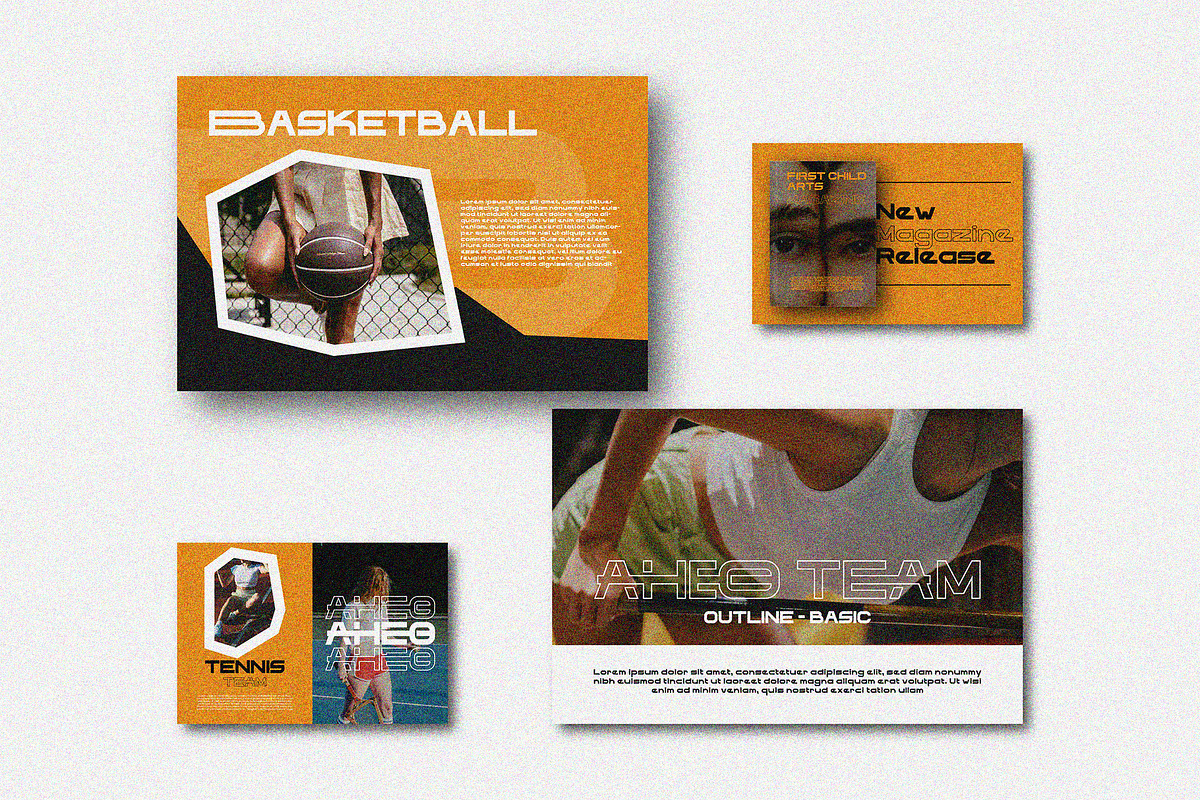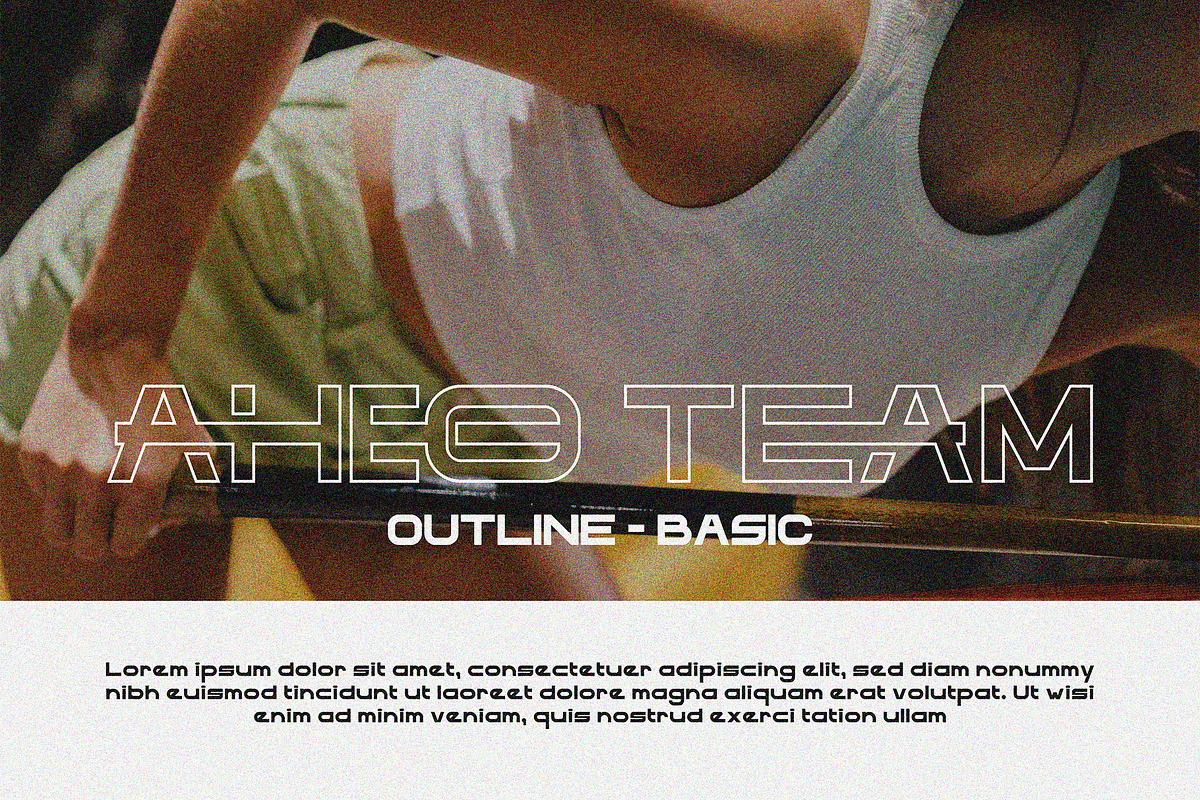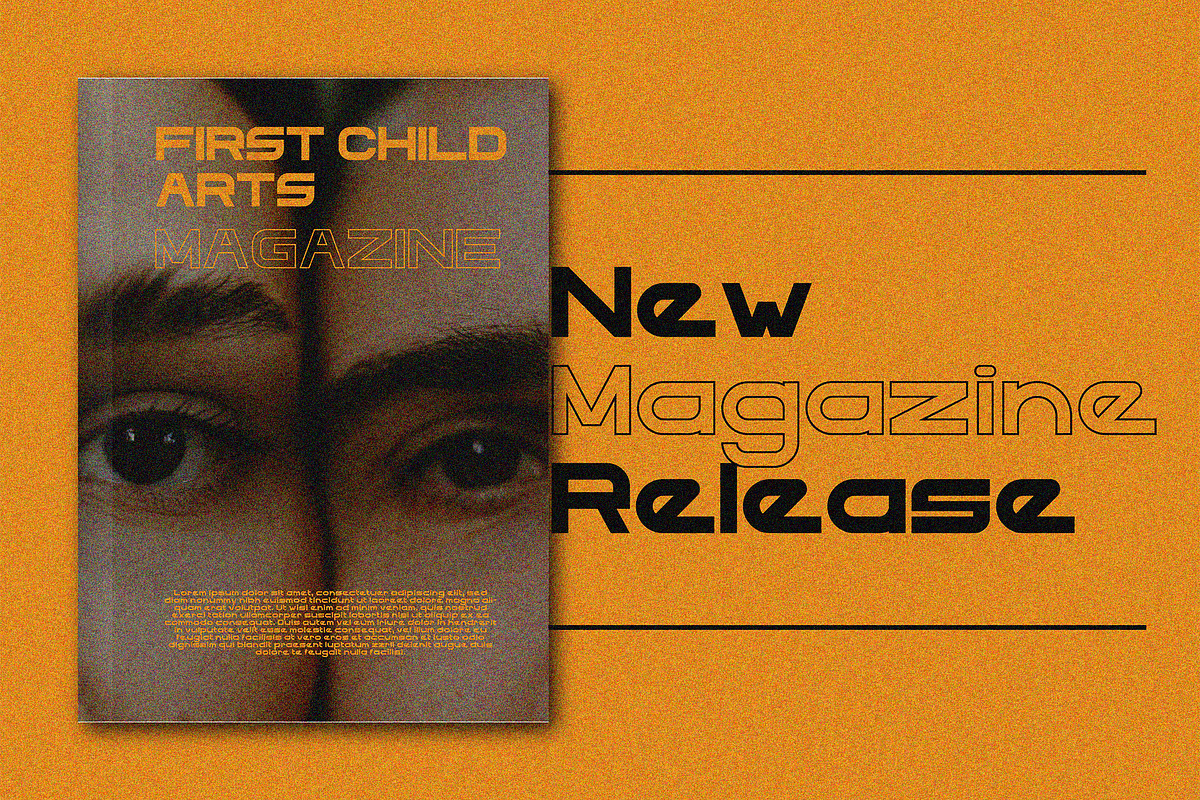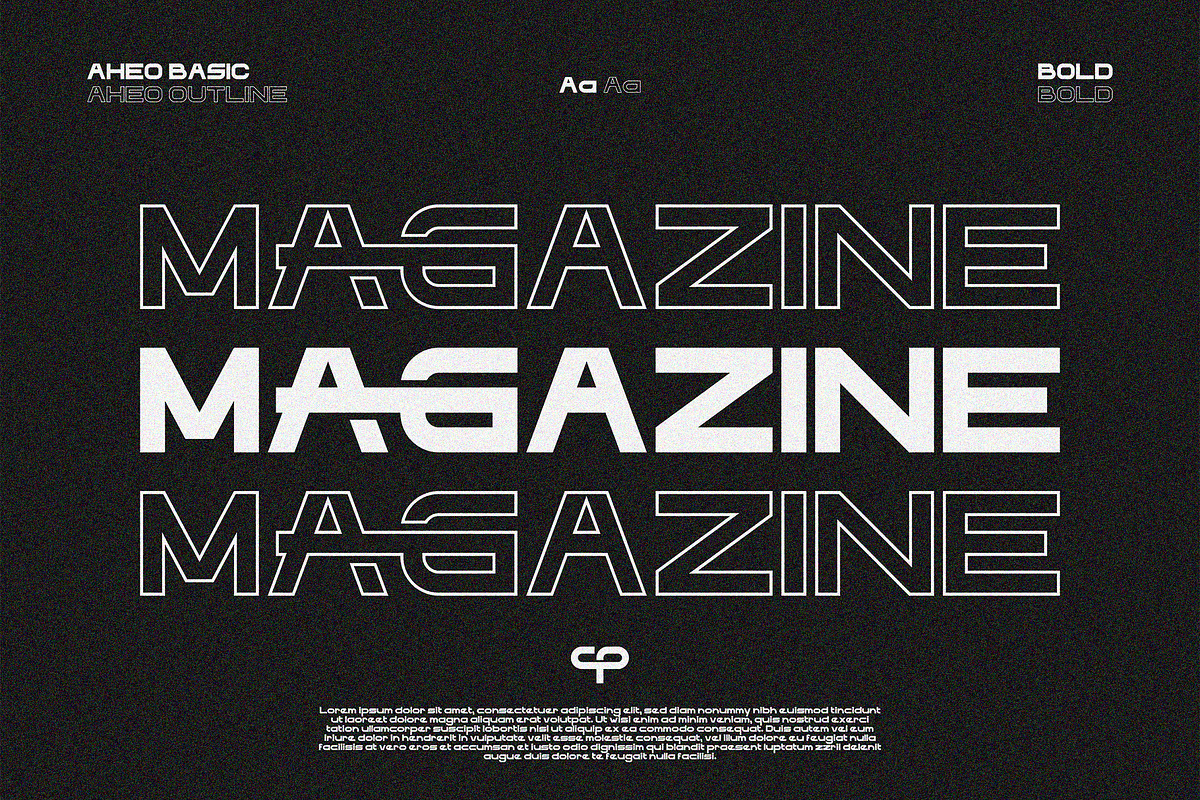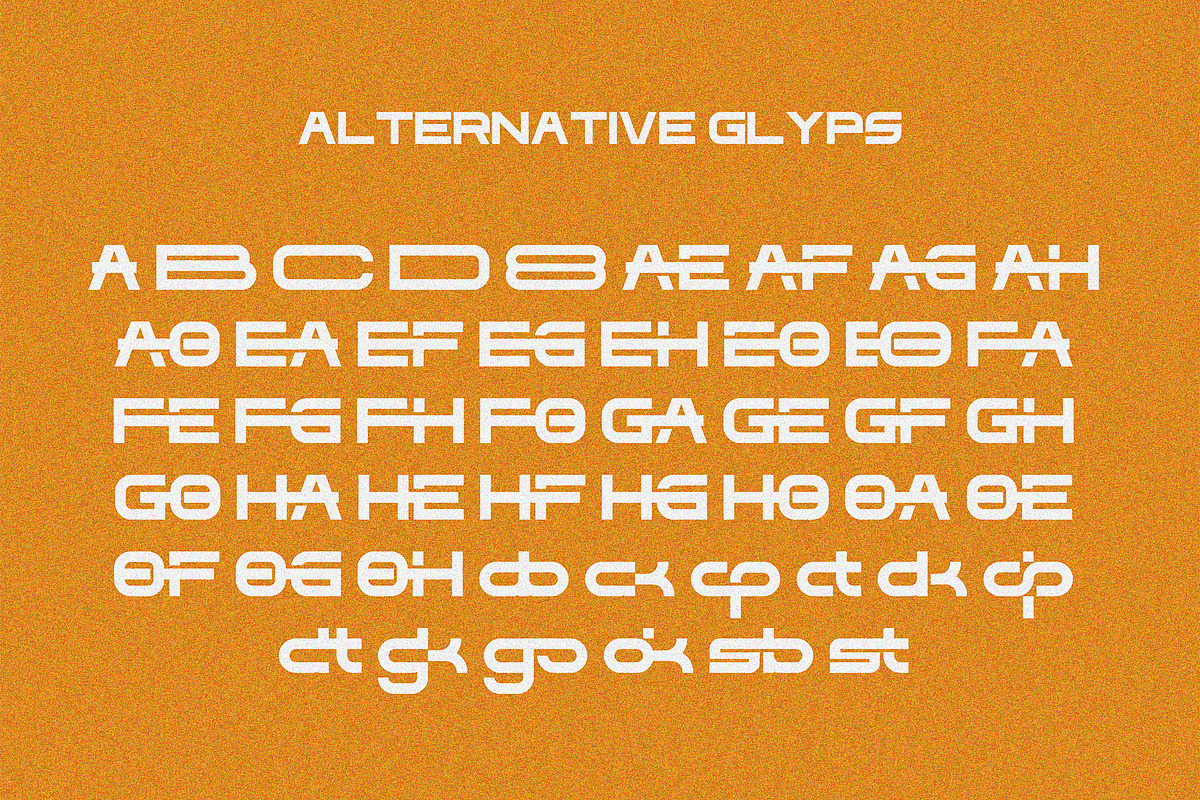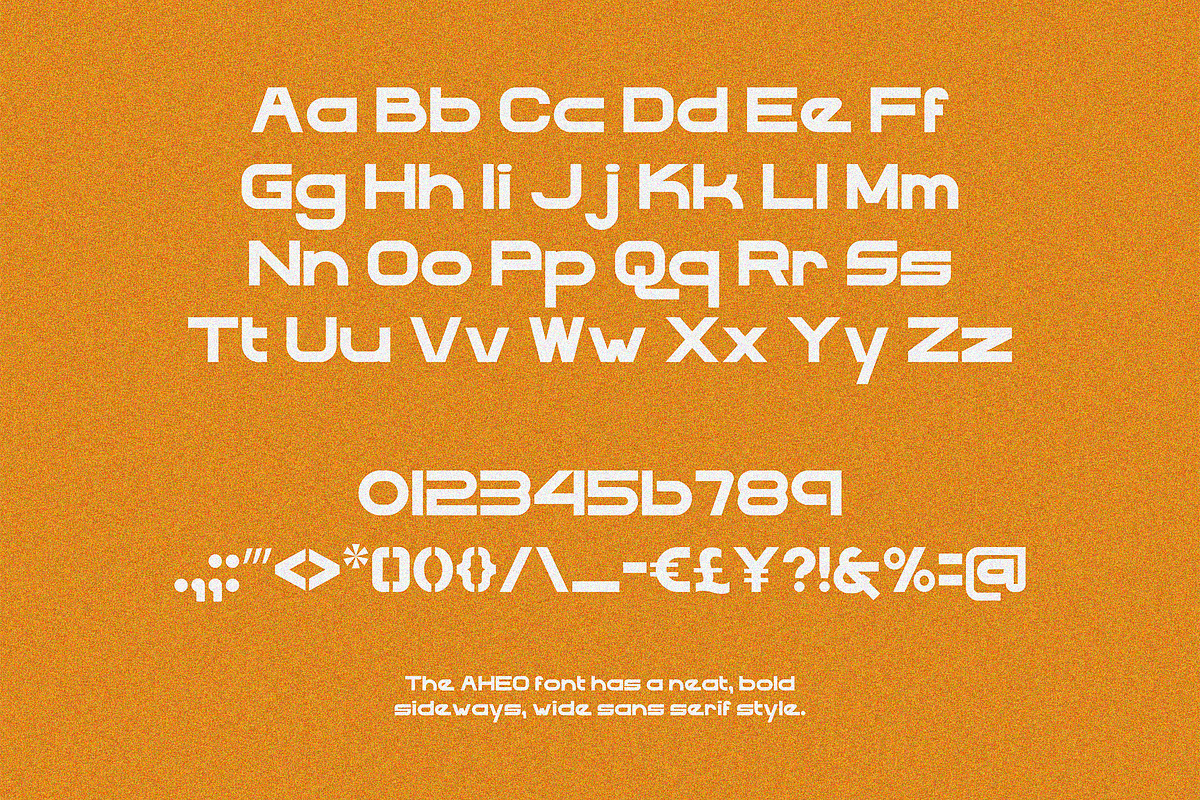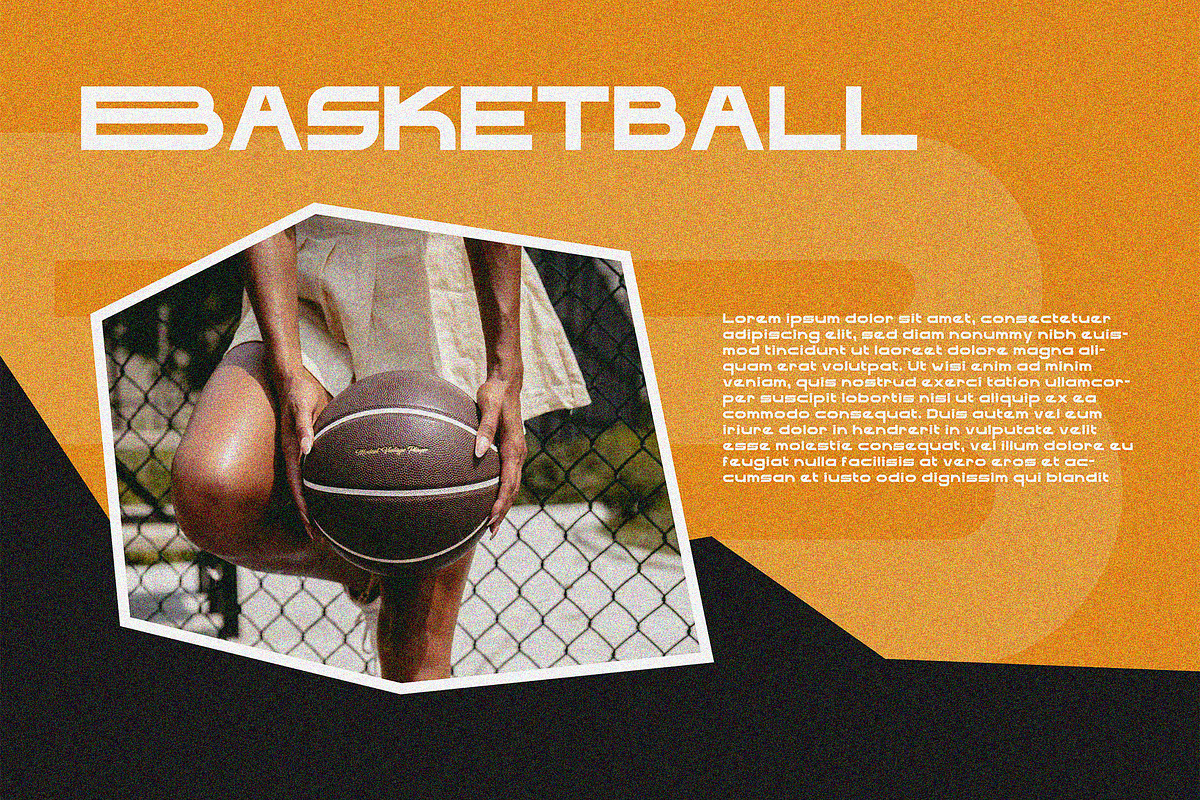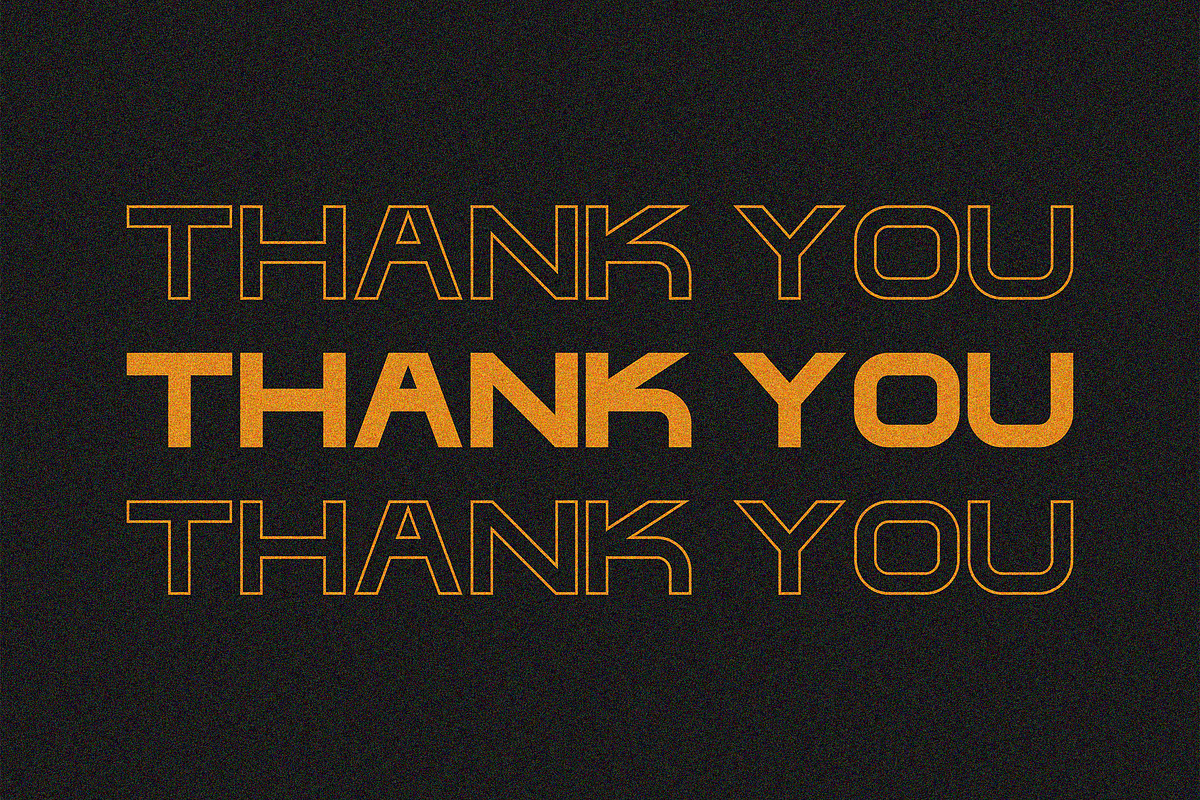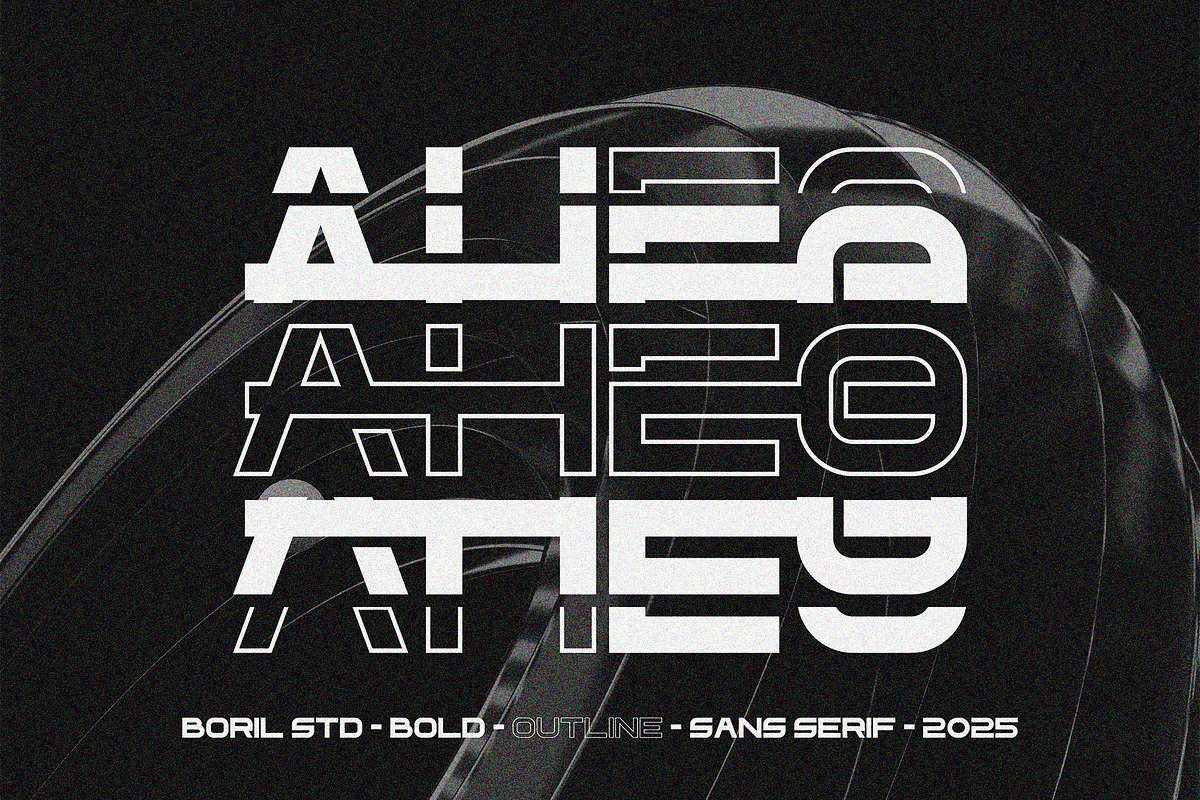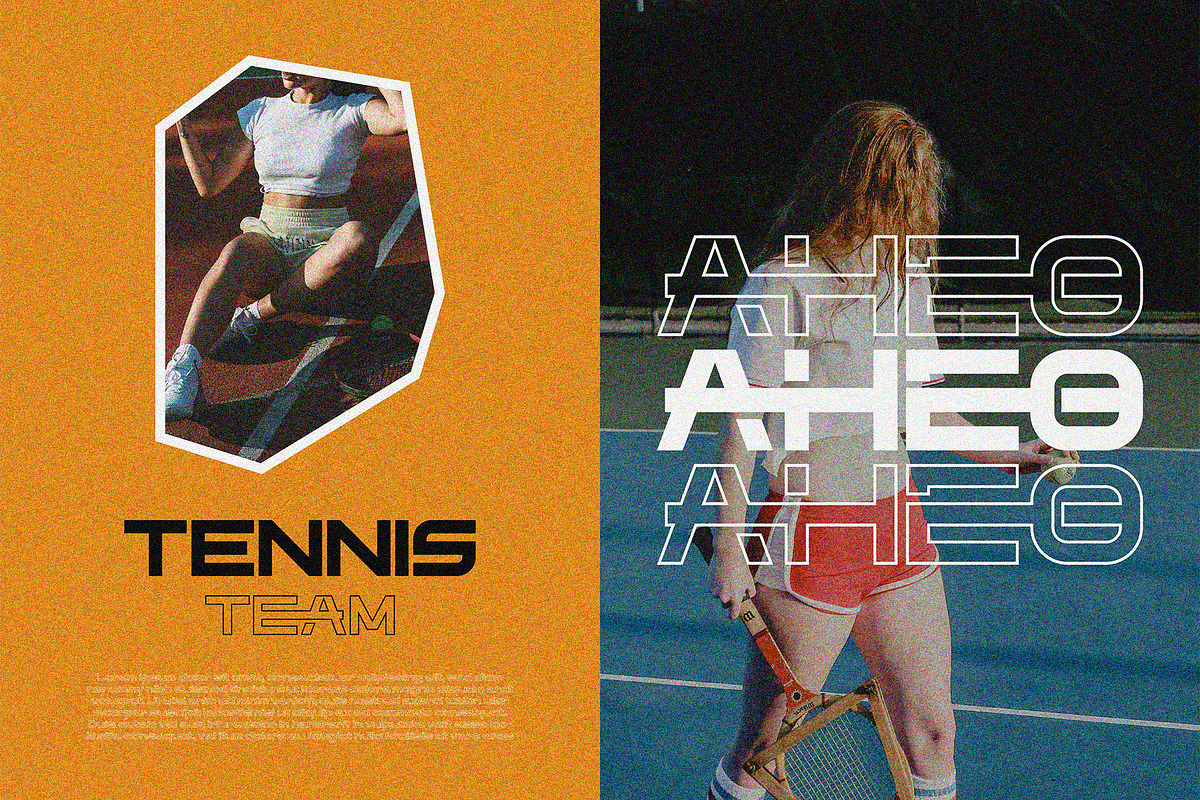
AHEO Modern Sans Wide
AHEO is a type of sans serif font that is geometric and modern, the AHEO font has a neat shape, and has a unique sideways widening, this font is suitable for posters, magazines, design presentations, logos, branding, websites, and so on and is very suitable for themes such as fashion or sports. There are several alternative glyphs